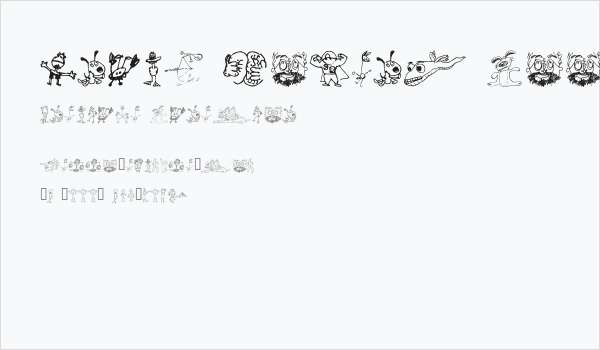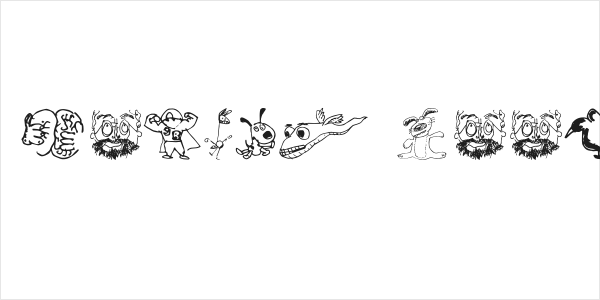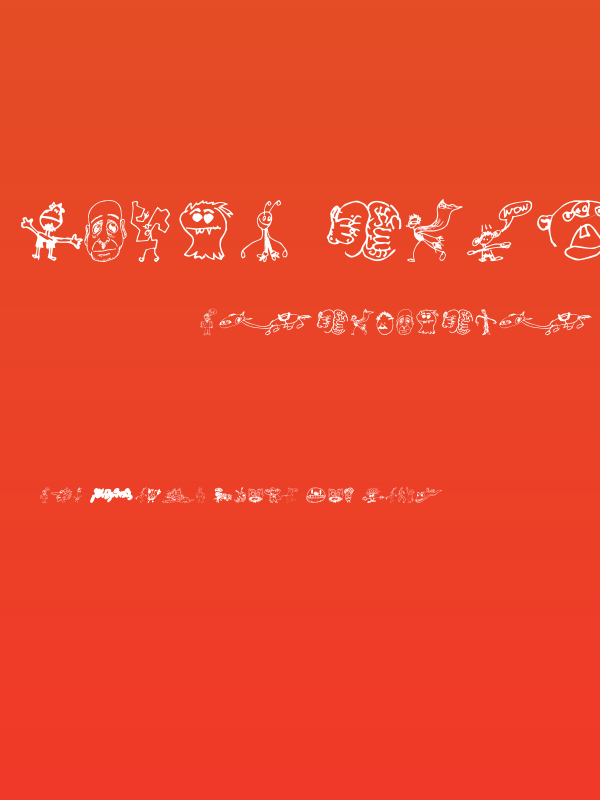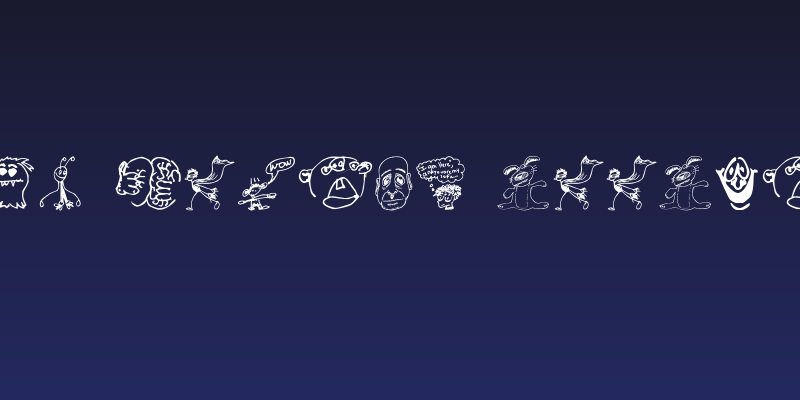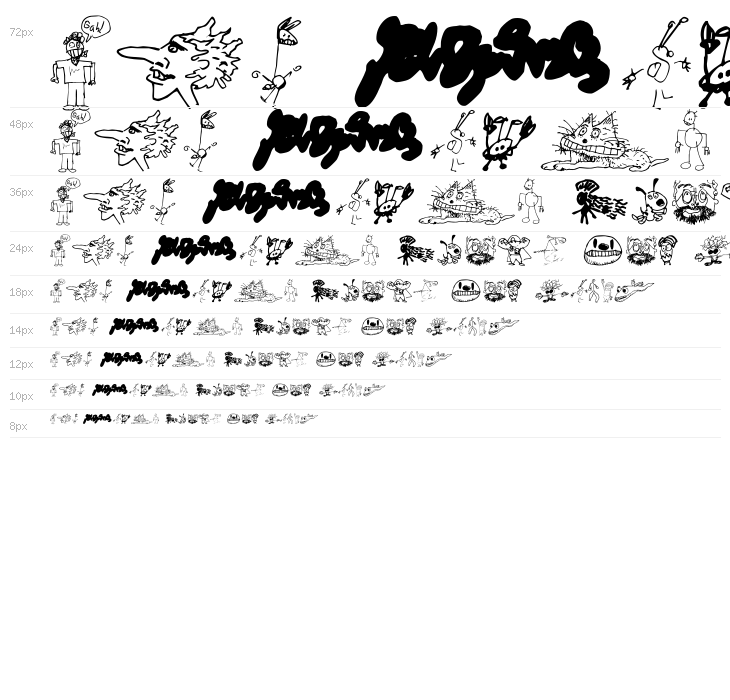
Brian Powers Doodle 2 1 Font
Brian Powers Doodle 2 1 Description
A highly whimsical and playful collection of hand-drawn doodle characters, each glyph featuring a unique cartoonish figure or abstract sketch, with irregular line weights and a spontaneous, informal style.
| Overall Style | Decorative, Whimsical, Playful |
| Use Case | Logos, Posters, Headlines, Art projects |
| Proposed Projects | ChildrenΓ’β¬β’s books, creative posters, party invitations, quirky branding, art projects. |